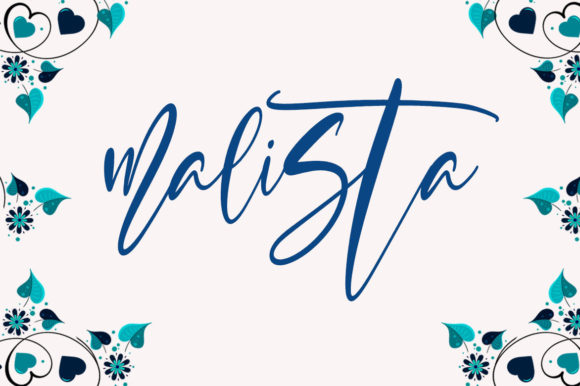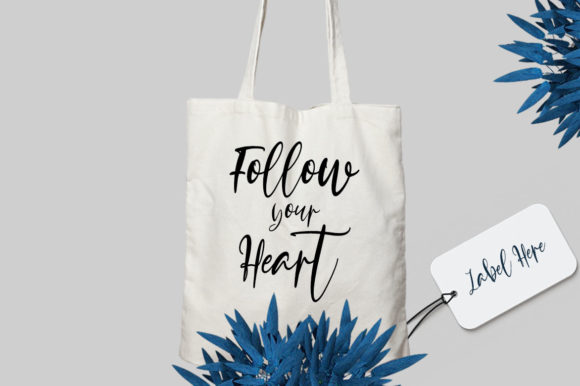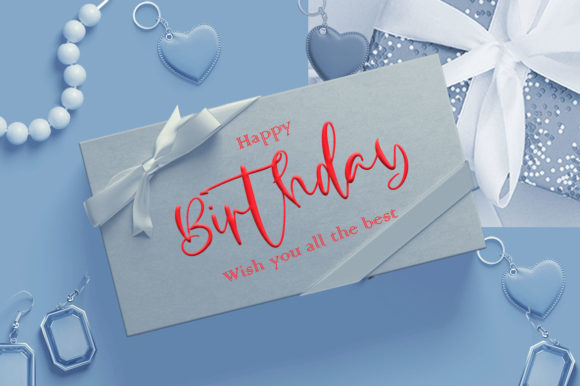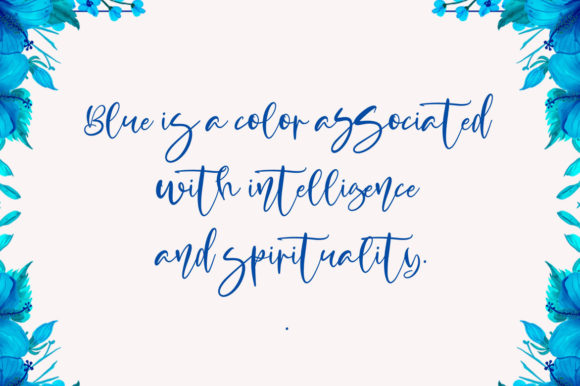
Malista Font: An Elegant Script for Wedding Invitations & Logo Design
About the Malista Font
Welcome to the world of Malista Font, a typeface that will inspire your next great project. Malista is a lovely and delicate script font that exudes elegance and class. This font was particularly crafted for those who need a beautiful and refreshing look to their designs.
Malista’s delicate forms make it ideal for projects requiring a touch of refined elegance, such as wedding invitations, logos for luxury brands, or short-form content like quotes or headers in brochures. Its flowing script lends itself well to packaging design where a sense of sophistication is desired. However, its intricacy makes it unsuitable for body text or UI elements, where readability is paramount. Extended use would strain the eye.
Pairing Malista effectively requires a contrasting typeface to provide balance. A clean, geometric sans-serif like Montserrat or a modern serif like Playfair Display would complement its elegant curves. For a more playful approach, consider pairing it with a rounded sans-serif such as Lato. The key is to choose a font that doesn’t compete with Malista’s delicate nature, but rather enhances it.
Malista projects an overall feeling of sophisticated femininity and graceful charm, making it a strong choice for brands aiming for a luxurious or romantic aesthetic. Its personality is best described as elegant and refined, but with a subtle hint of playfulness.
Malista Font Usage Examples
Malista Font Example